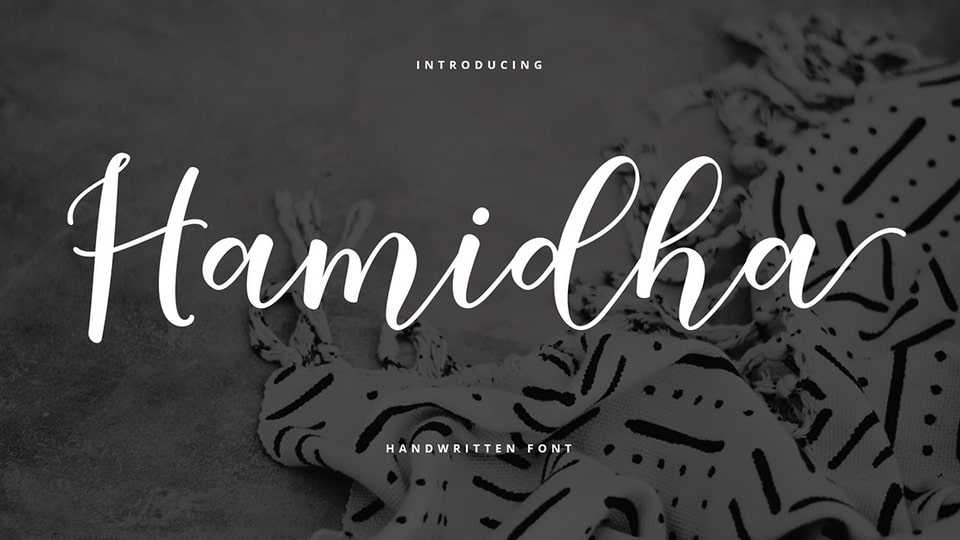
Download Hamidha font, a trendy, natural and gentle, with this font you can take advantage of the opportunity in every moment of one wonderful way to highlight the celebration.